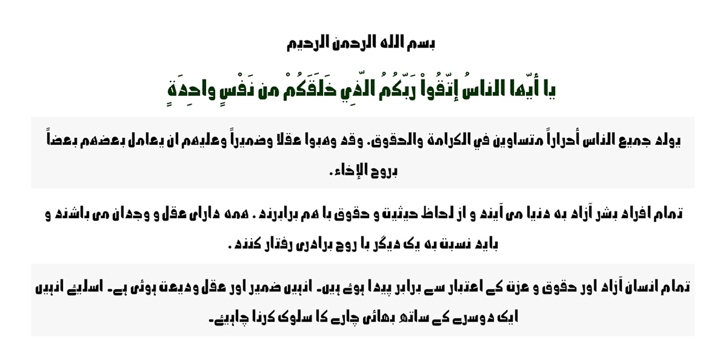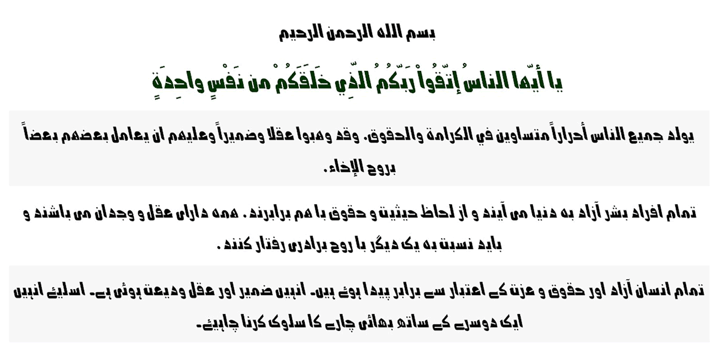
Hazim
por Arabetics
La familia tipográfica Hazim fue diseñada por Saad D. Abulhab y publicada por Arabetics. Hazim contiene 2 estilos y opciones de paquete familiar.
Hazim is a display font designed with isolated letters. It uses thin white slits positioned within extra bold black space glyphs emphasizing the main visual characteristics of the Arabetic letters in two positions: initial/medial and final/isolated. The spacing widths between glyphs match that of the slits to give a virtual cursive look and feel. The name Hazim was chosen to honor a friend of the designer, Hazim al-Khafaji. Hazim supports all Arabetic scripts covered by Unicode 6.1, and the latest Arabic Supplement and Extended-A Unicode blocks, including support for Quranic texts. It comes with one weight and a left-slanted “italic”. The script design of this font family follows the Arabetics Mutamathil Taqlidi style and utilizes varying x-heights. The Mutamathil Taqlidi type style uses one glyph per every basic Arabic Unicode character or letter, as defined by the Unicode Standards, and one additional final form glyph, for each freely-connecting letter in an Arabic text. Hazim includes the required Lam-Alif ligatures in addition to all vowel diacritic ligatures. Hazims’s soft-vowel diacritic marks (harakat) are only selectively positioned with most of them appearing on similar lower or upper positions to make sure they do not interfere with the letters. Kashida is enabled.
Operating as arabetics.com, Arabetics is New York based private foundry and consulting firm specializing in Arabic fonts and lettering design, and related Arabic typography software solutions. It is best known for producing innovative, and inspiring non-traditional simplified fonts. Arabetics prime mission is to produce quality fonts to support Arabetic scripts computing and typography needs. It was founded in 2003, by type designer Saad D. Abulhab who introduced earlier the US Utility Patent awarded Mutamathil Type Style, the underlying design template behind most of Arabetics fonts. The Mutamathil design philosophy aims at producing extended Arabic fonts that would diversify and enrich users typographic options and address the scripts challenges of literacy, education, economics, technology, global competition, as well as style and legibility. Mr. Abulhab is an IT Electrical Engineer and a librarian. His involvement in Arabic type design and computing goes back to 1992.